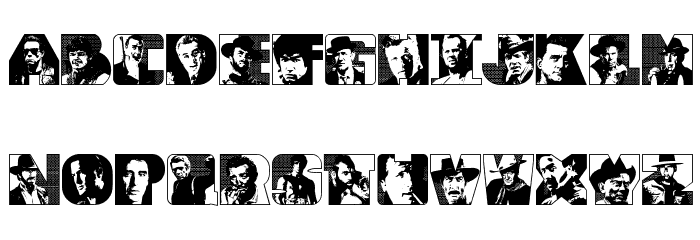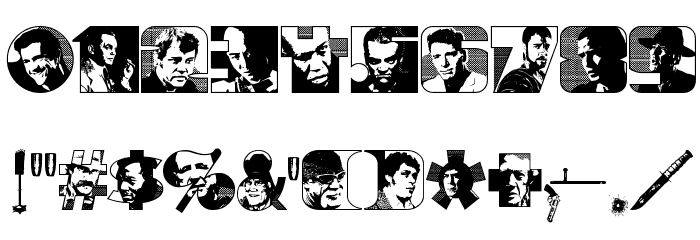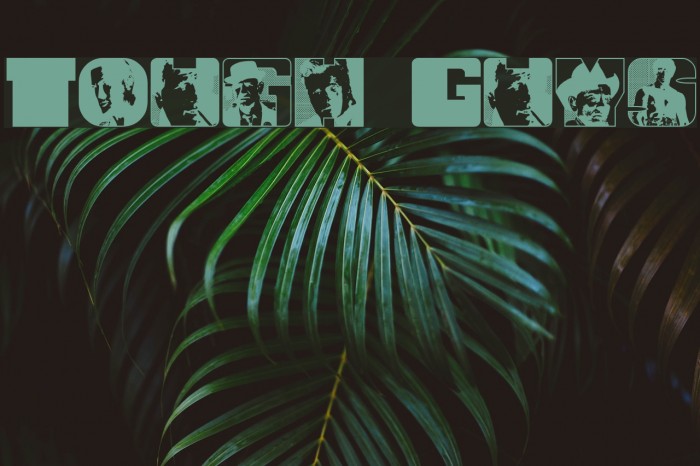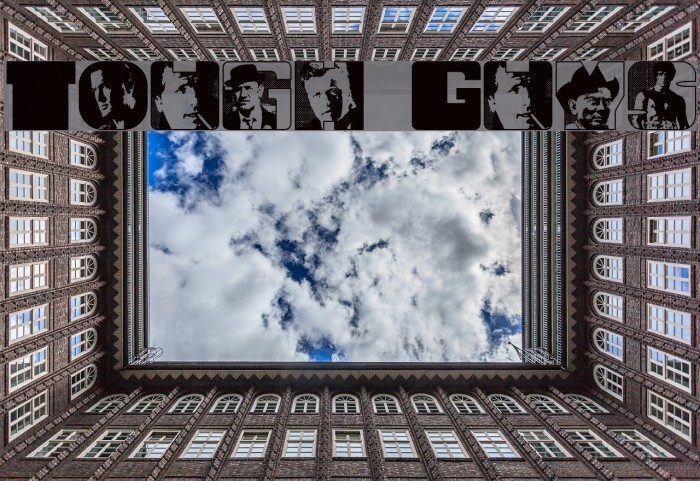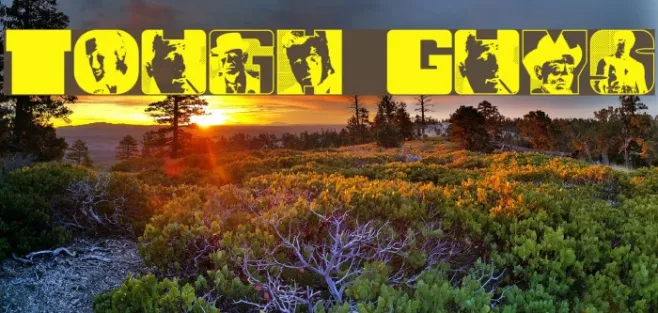
Tough Guys Font
This bold and striking font features a unique design where each character is filled with detailed illustrations of tough, rugged individuals, reminiscent of classic action or noir films. The uppercase letters are bold and blocky, creating a strong visual impact. The characters are tightly spaced, enhancing the cohesive look of the text. The font's high contrast between the solid black outlines and the intricate interior illustrations adds depth and interest, making it ideal for projects that require a dramatic and eye-catching style.
A bold, illustrated font featuring rugged characters within each letter.
- Proposed Projects: Perfect for movie posters, graphic novels, themed event invitations, or any project needing a bold, cinematic flair.
- Character Spacing: Tight
- Use Case: Headlines, Posters, Logos